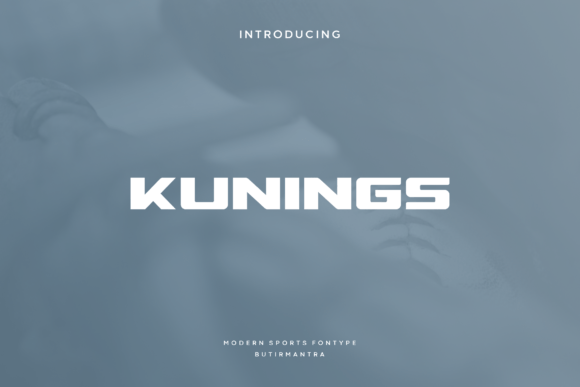
Journey into the realm of typography and discover Kunings Font, a captivating sans-serif masterpiece crafted by the ingenious minds at garismantra. This font isn't just a collection of letters and symbols; it's an artistic expression that breathes life into your designs, transforming ordinary words into captivating statements.
Kunings Font is more than just a font; it's an extension of your creativity, an instrument that amplifies your message and captivates your audience. Its clean, elegant lines exude sophistication and luxury, making it the perfect choice for creating logos that command attention and leave a lasting impression.
Imagine your brand's logo adorned with Kunings Font, a visual symphony that speaks volumes about your dedication to excellence and impeccable taste. Its timeless beauty transcends trends, ensuring that your logo remains relevant and captivating for years to come.
Kunings Font isn't limited to logos; it's a versatile chameleon that adapts seamlessly to any design project. Whether you're crafting elegant invitations, captivating social media posts, or eye-catching website designs, Kunings Font will elevate your creations with its inherent grace and charm.
Its versatility extends beyond aesthetics, as Kunings Font is remarkably legible, ensuring that your message is not just seen, but understood. Its letterforms are meticulously designed to enhance readability, ensuring that your words flow effortlessly from one character to the next, creating an immersive reading experience that keeps your audience engaged.
Kunings Font is not just a font; it's an investment in your brand's identity, a tool that empowers you to create designs that resonate with your audience, leaving an indelible mark on their minds. It's a font that transforms your creative vision into a tangible reality, capturing the essence of your brand and propelling it to new heights.
Embrace the transformative power of Kunings Font, and embark on a journey of design excellence, where every creation is a masterpiece.